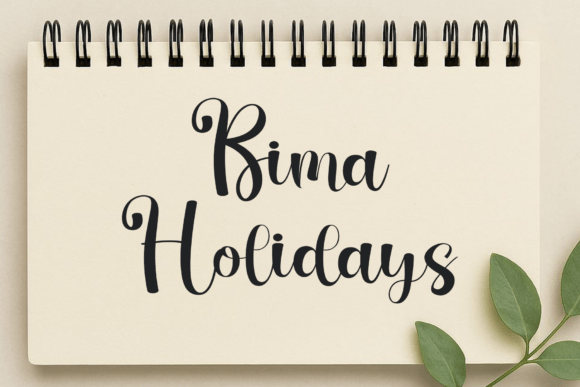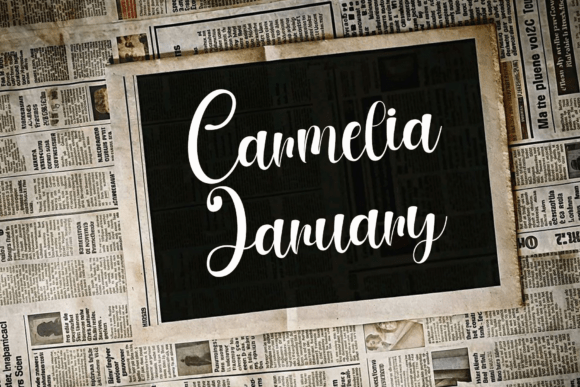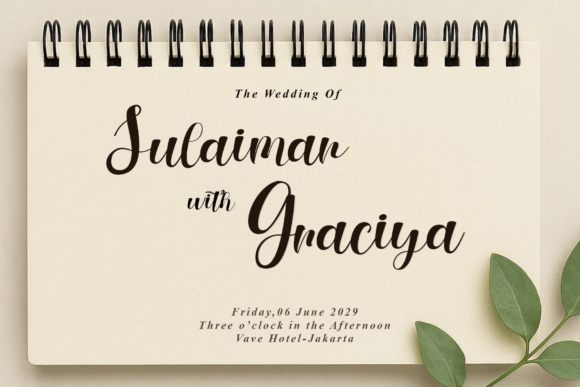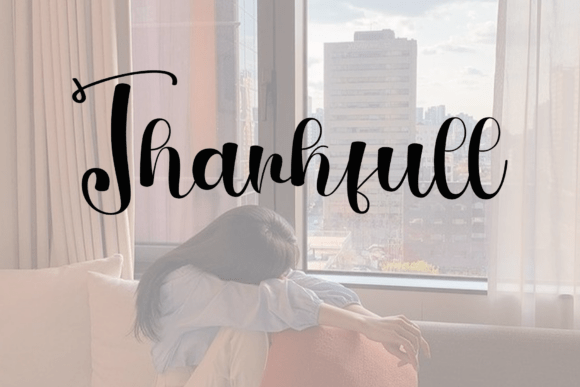
Discover the Charm of Beliving Font: Elevate Your Designs with a Timeless Handwritten Style
Are you on the hunt for a font that adds a personal touch to your designs? Look no further than Beliving Font, a lovely and timeless handwritten font that is sure to capture the hearts of designers and crafters alike. With its unique and beautiful touch, Beliving Font is the perfect choice for creating eye-catching logos, branding, and quotes that will make your design come alive!
Handwritten fonts have a way of adding a personal and human touch to any design. They evoke feelings of warmth, friendliness, and approachability, making them perfect for designs that aim to connect with the audience on a more personal level. Beliving Font is no exception, with its delicate and elegant strokes that mimic the natural flow of handwriting.
What Makes Beliving Font Stand Out
So, what sets Beliving Font apart from other handwritten fonts? For starters, every letter has a unique and beautiful touch that gives the font a sense of character and personality. The font is carefully crafted to ensure that each letter is distinct and visually appealing, making it perfect for use in logos, branding, and other designs where legibility and style are crucial.
Another standout feature of Beliving Font is its versatility. Whether you’re designing a logo, a quote, or a brand identity, this font can adapt to any style or theme. Its timeless quality ensures that it won’t go out of style anytime soon, making it a valuable addition to any designer’s font library.
Uses for Beliving Font
Beliving Font is incredibly versatile and can be used in a wide range of design projects, including:
- Logo Design: Create a memorable and eye-catching logo that reflects your brand’s personality with Beliving Font.
- Branding: Use Beliving Font to add a personal touch to your brand identity and make it stand out from the crowd.
- Quotes and Typography: Add a touch of elegance and sophistication to your quotes and typography with Beliving Font.
- Stationery and Invitations: Use Beliving Font to create beautiful and unique stationery and invitations that will make a lasting impression.
Tips for Using Beliving Font
To get the most out of Beliving Font, here are a few tips to keep in mind:
- Pair it with a sans-serif font: Pairing Beliving Font with a sans-serif font can create a beautiful contrast that adds visual interest to your design.
- Experiment with colors: Beliving Font looks great in a variety of colors, so don’t be afraid to experiment and find the perfect hue for your design.
- Use it sparingly: While Beliving Font is beautiful, it can be overwhelming if used excessively. Use it sparingly to add a touch of elegance and sophistication to your design.
In conclusion, Beliving Font is a lovely and timeless handwritten font that is sure to elevate your designs to the next level. With its unique and beautiful touch, versatility, and timeless quality, it’s the perfect choice for designers and crafters who want to add a personal touch to their designs. Whether you’re creating a logo, branding, or quotes, Beliving Font is sure to make your design come alive!